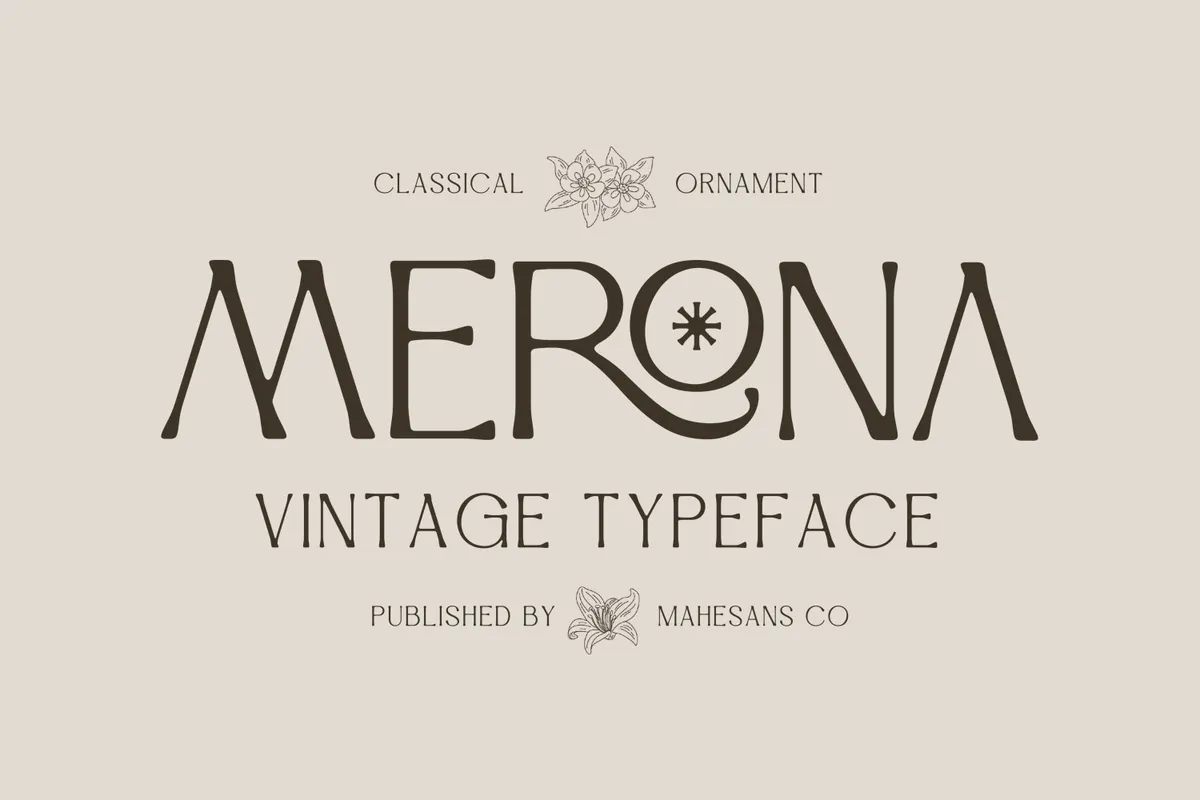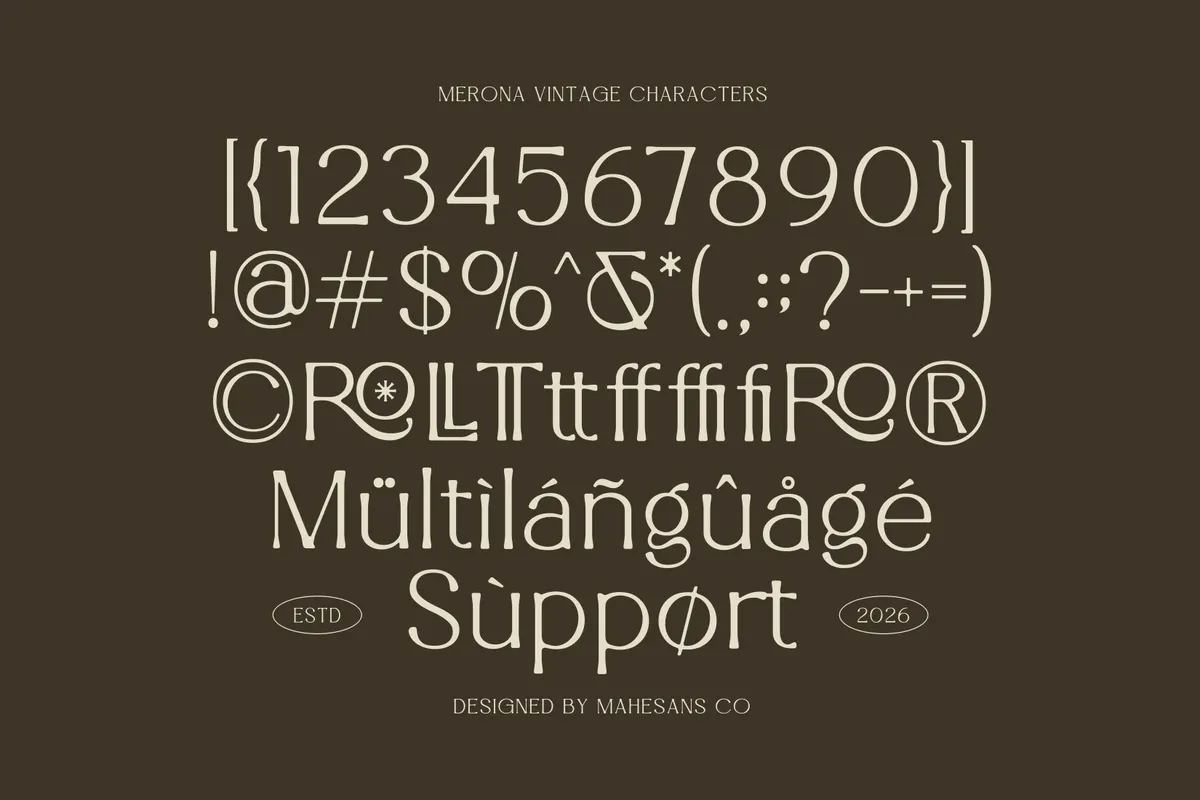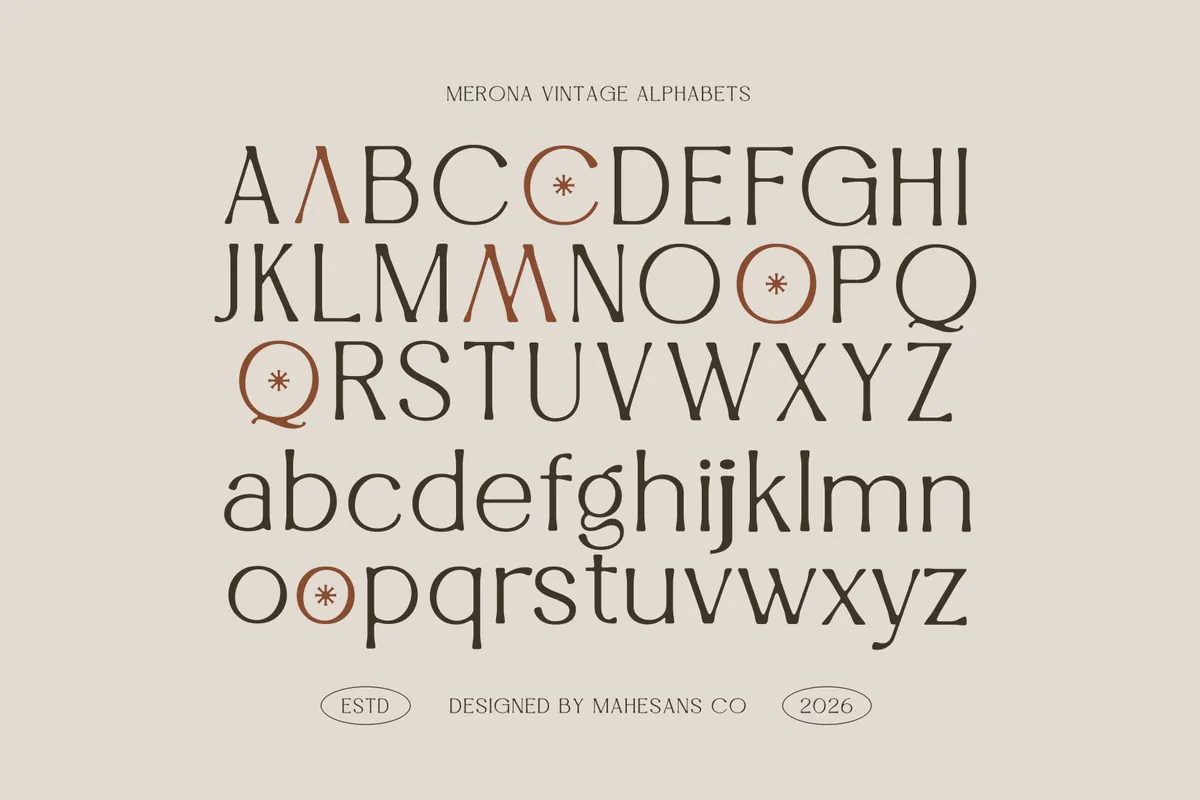
Merona – Vintage Display Typeface
Merona
Merona builds vintage display capitals from tall, slightly rustic serif shapes, with an antique western character running through the construction. Six alternate letters, A, C, M, O, Q, and o, swap in decorative circled and pointed forms, and four ligatures fuse LL, RO, TT, and tt into single ornamental shapes.
Use it for branding and logos, vintage labels and packaging, equestrian and western-style identities, editorial and magazine design, posters, invitations, apparel, and boutique or heritage brands.
- Uppercase & lowercase;
- Numerals, punctuation & symbols;
- Alternates on A, C, M, O, Q, o; ligatures on LL, RO, TT, tt, fi, fl, ff, ffi;